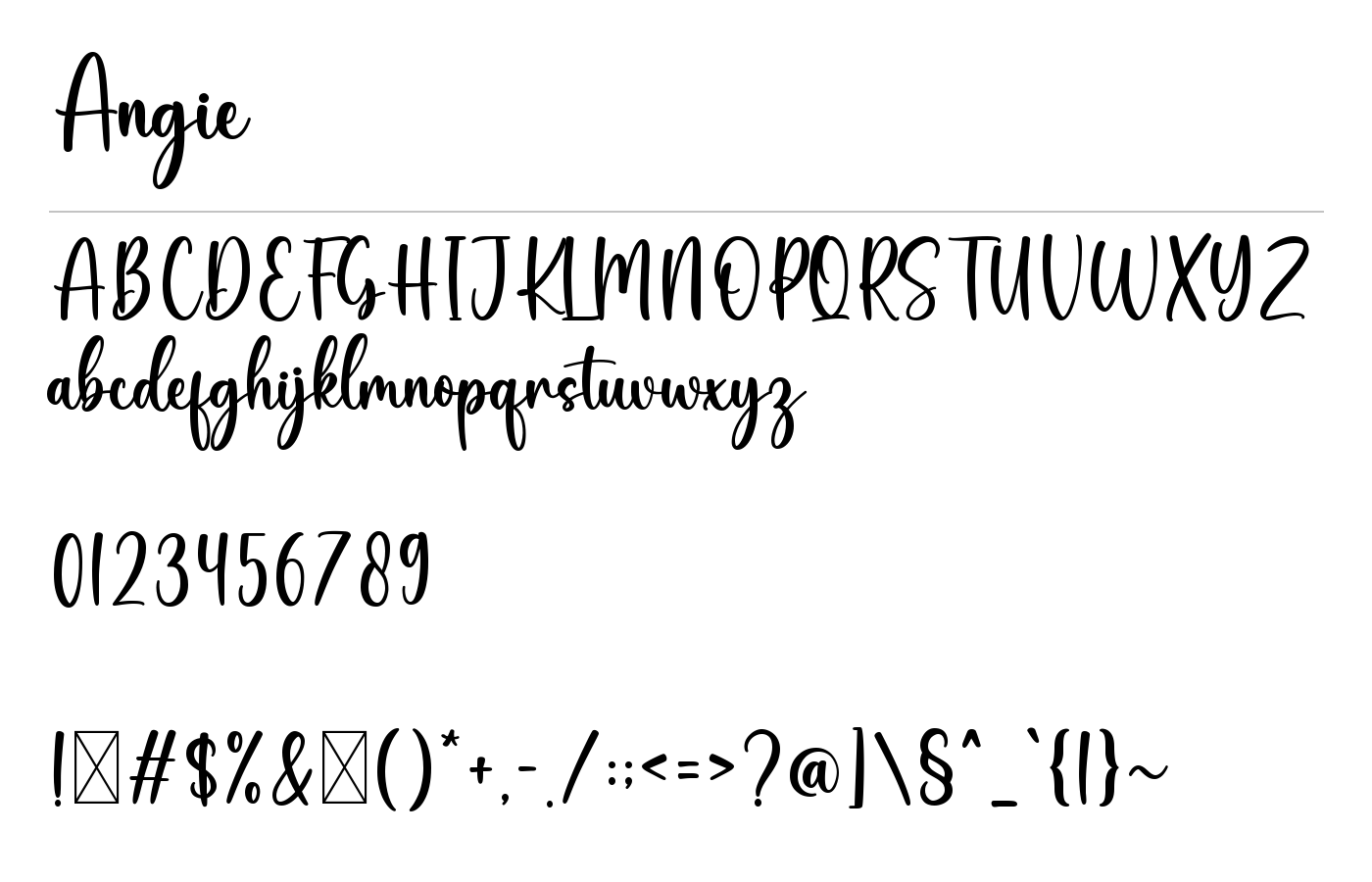
Angie is a playful and elegant script font with a handwritten feel, featuring smooth, flowing strokes and a lively, casual character. Its tall x-height and consistent weight make it highly readable while maintaining a charming and personal touch, perfect for branding, invitations, and creative designs that seek a warm and friendly vibe. This font shines in logos, social media graphics, and packaging where a stylish yet approachable look is desired.
Angie Font
About Angie Font